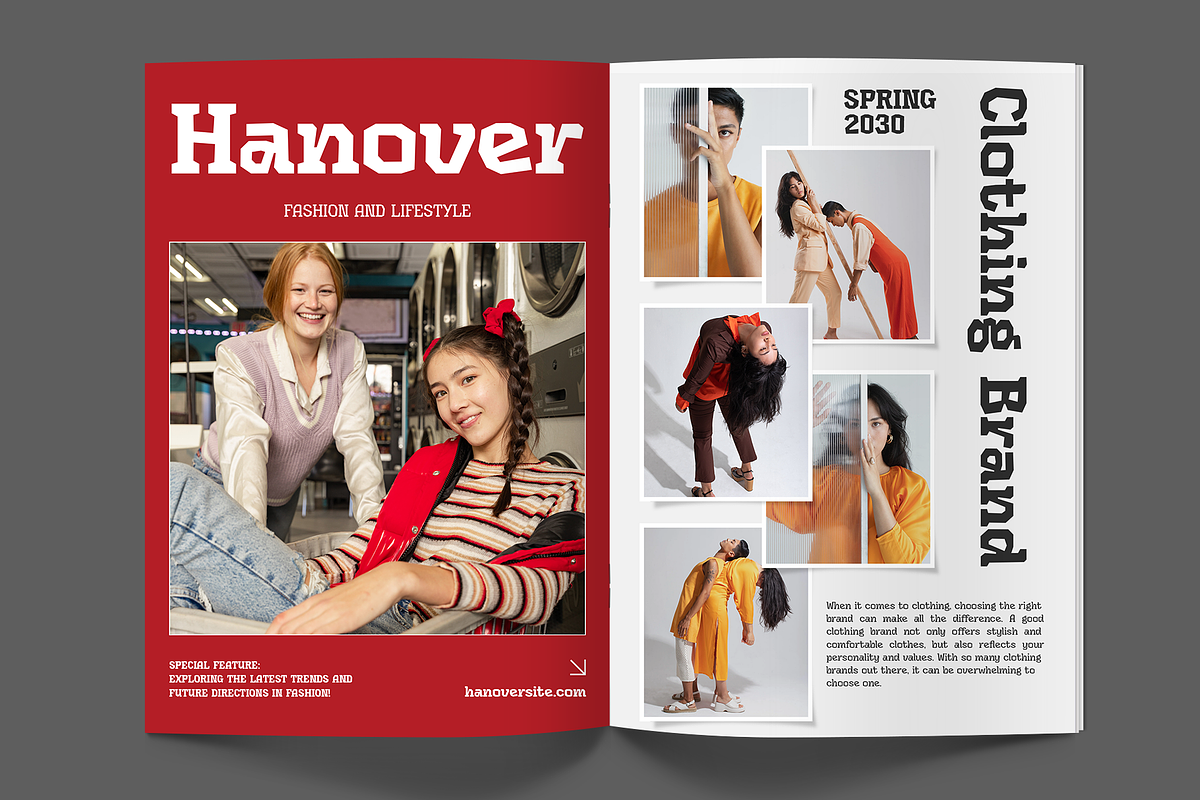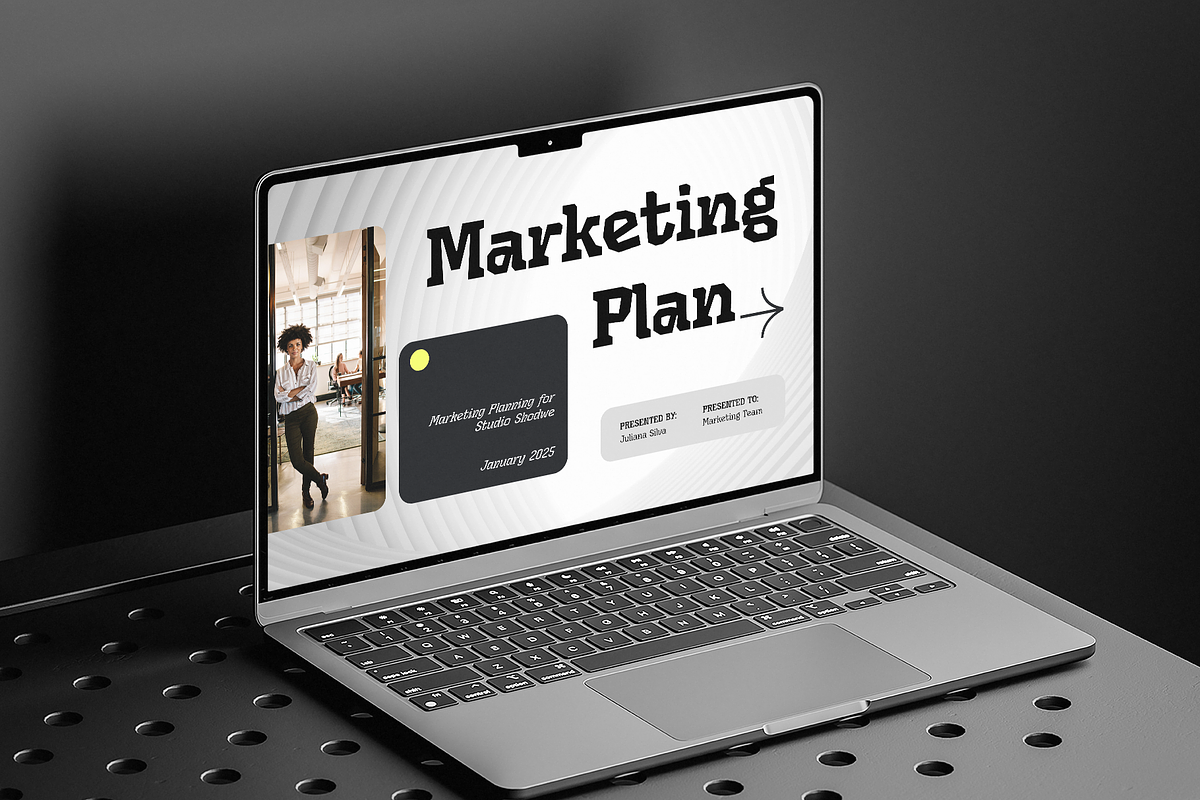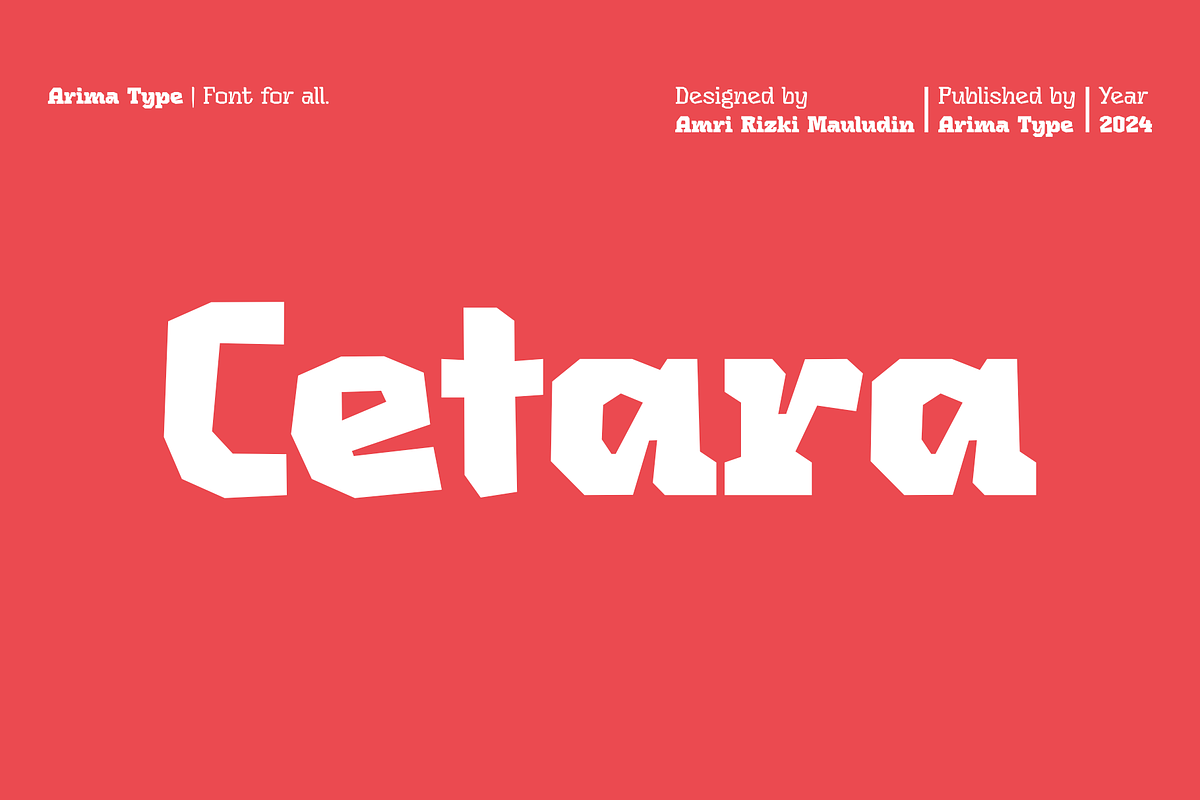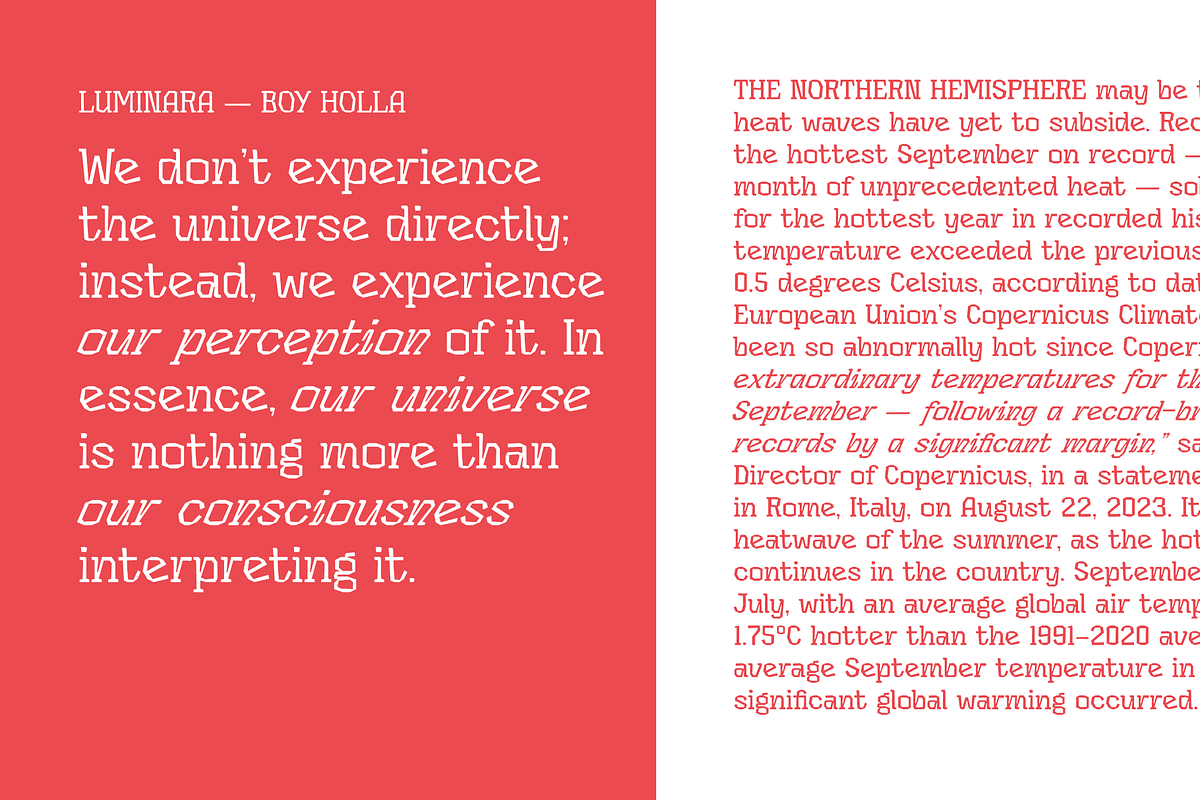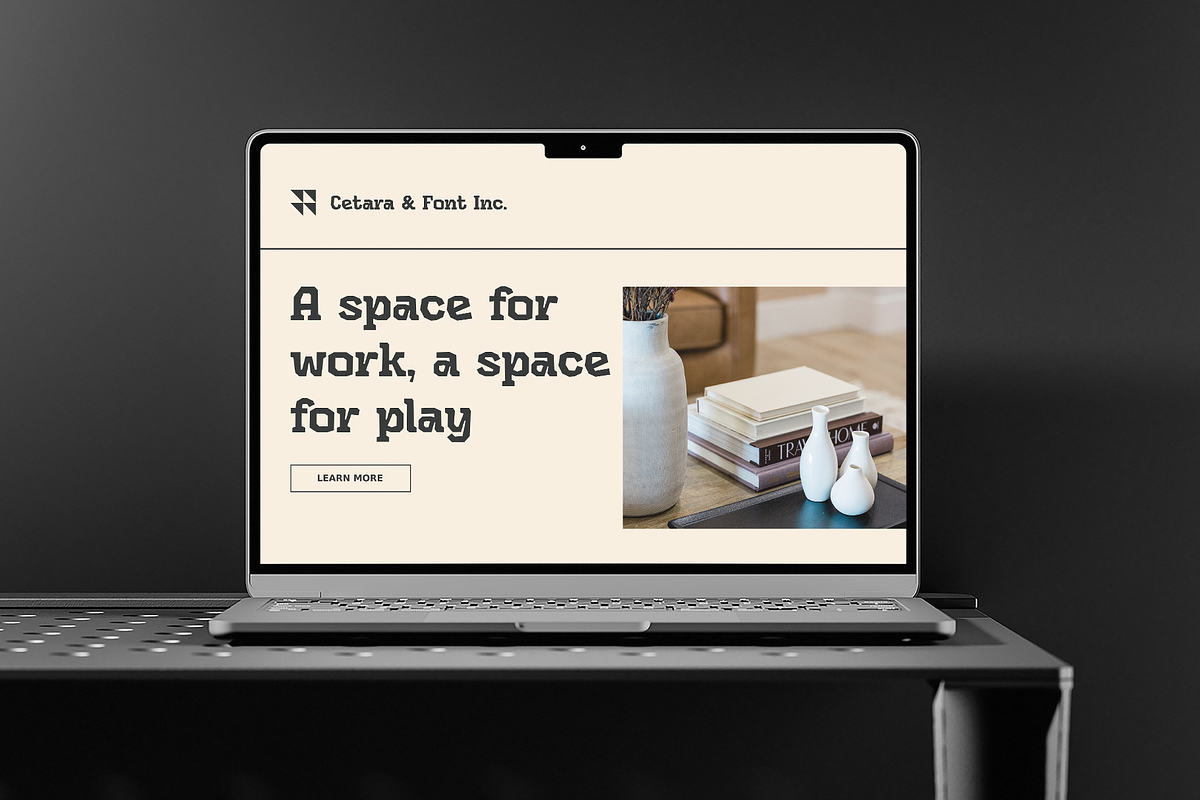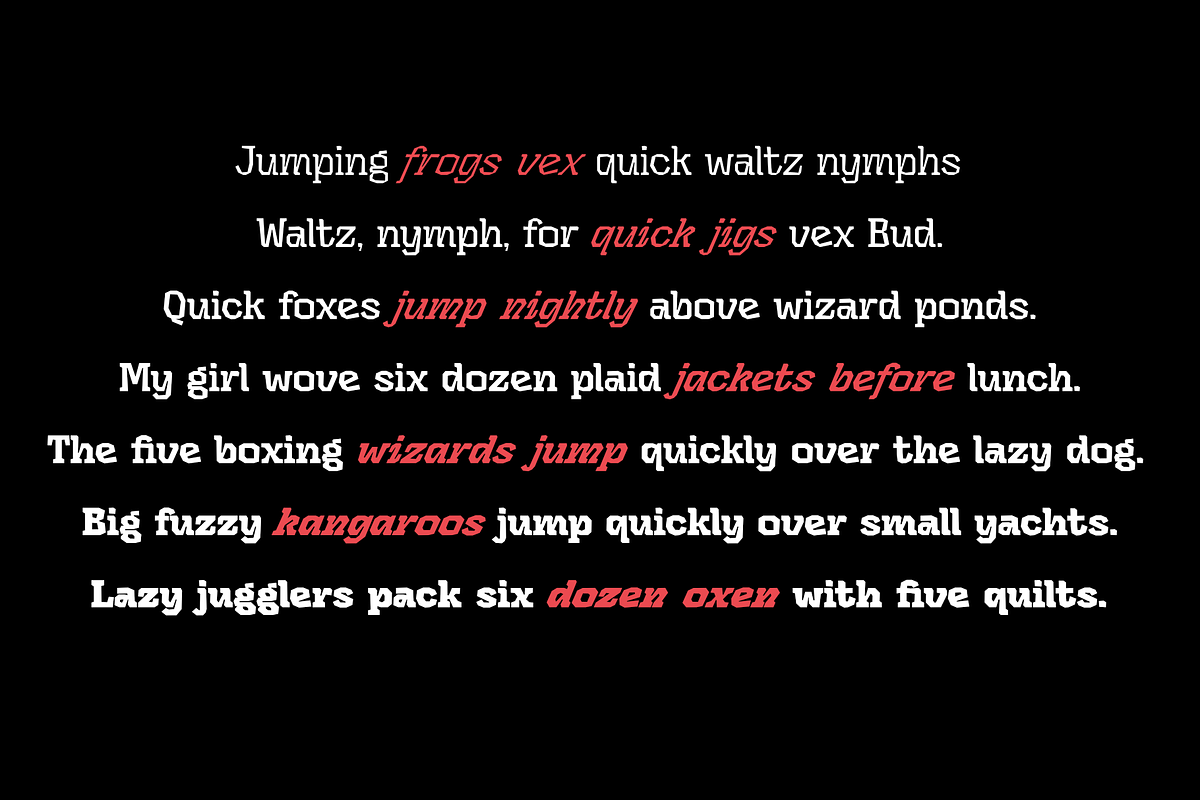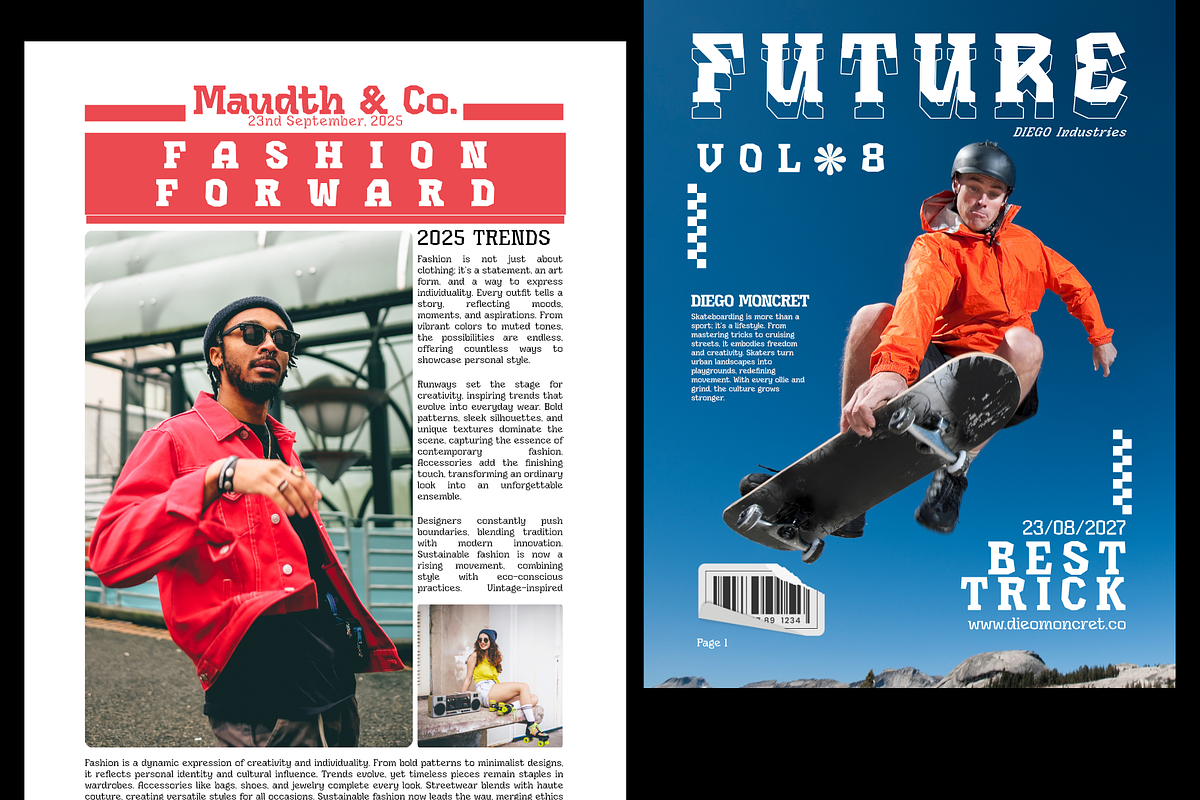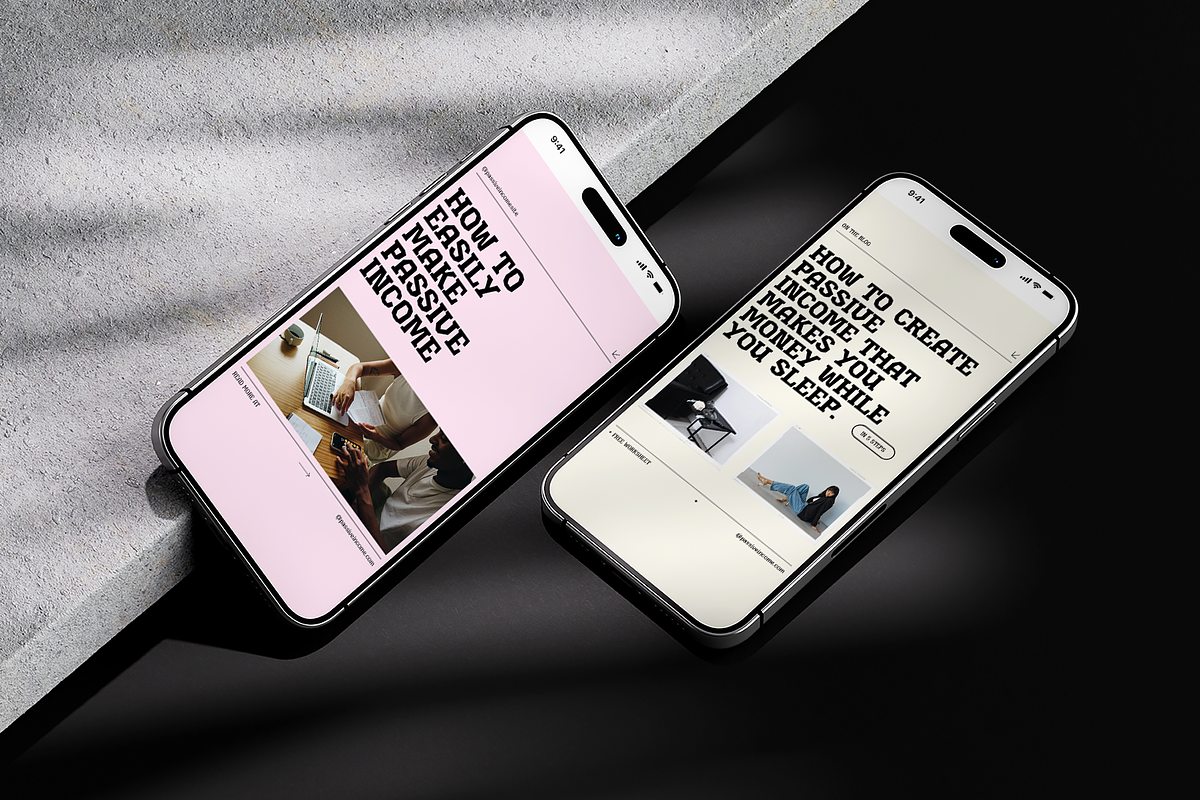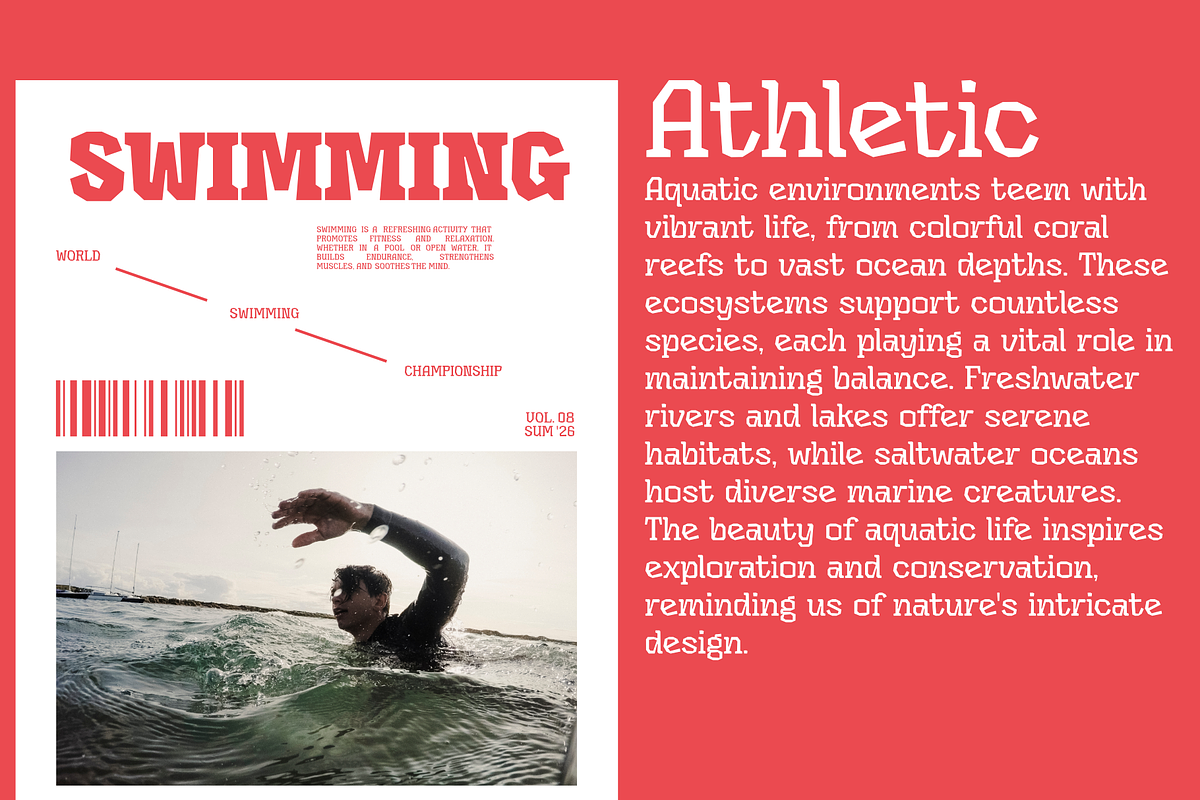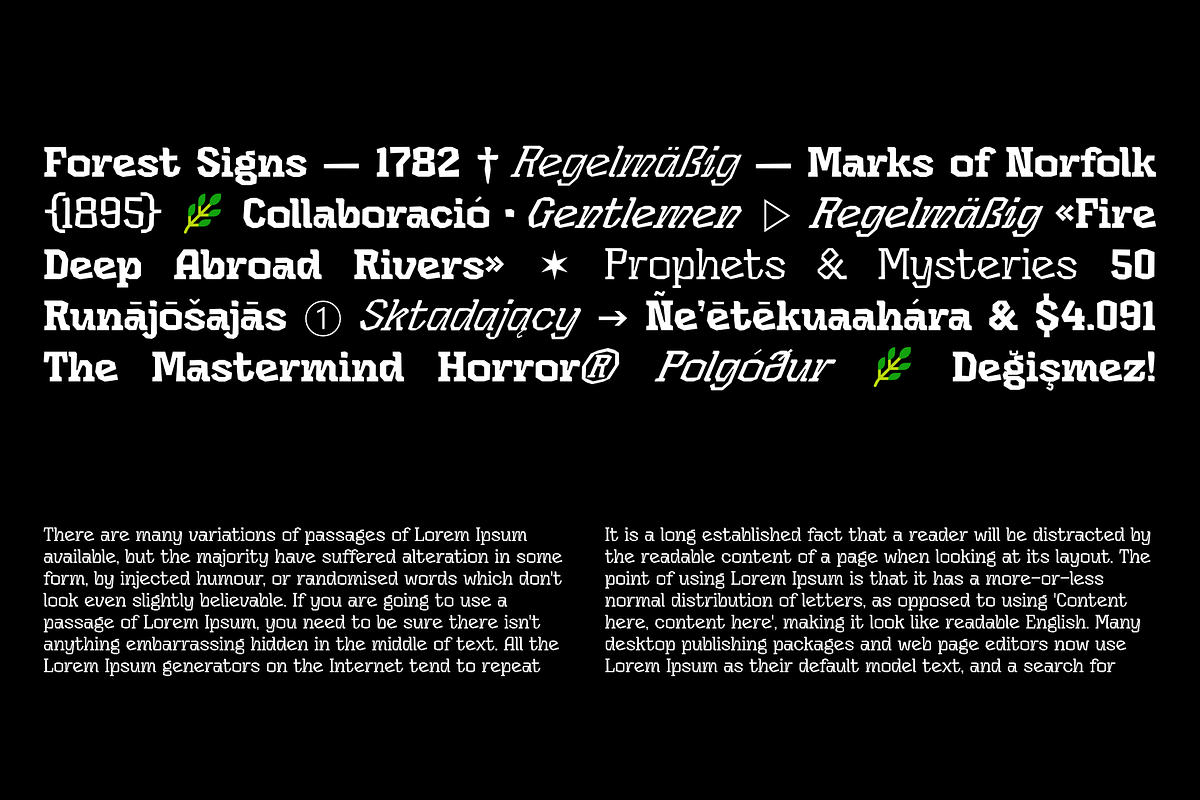
Cetara
Cetara is a unique and eccentric serif display font, designed to stand out in a variety of creative contexts. With its deliberately uneven lines and attention-grabbing details, Cetara delivers a bold yet elegant character.
Available in 7 weights, each accompanied by its charming italic counterpart, Cetara offers exceptional versatility for diverse design needs. Perfect for logos, branding, magazines, headers, and even music album covers—Cetara always shines in the spotlight.
Inspired by the shift in design trends toward more personal and expressive fonts, Cetara breaks the rules. It challenges the notion that serif fonts must always be geometric, precise, and uniform. Cetara embodies the freedom to express, allowing your designs to showcase their unique identity and character.